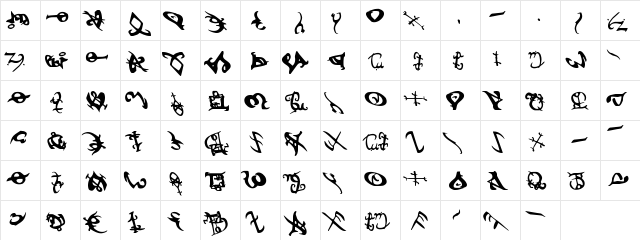
Devil's Tongue Leftalic Italic
Design Context for Devil's Tongue Leftalic Typeface
Devil's Tongue Leftalic is a composed and adaptable typeface that performs quietly and consistently across a wide range of design contexts. Its italic angle brings a sense of urgency and motion to the letterforms.